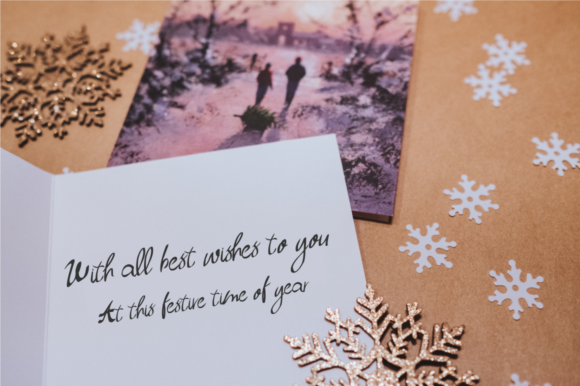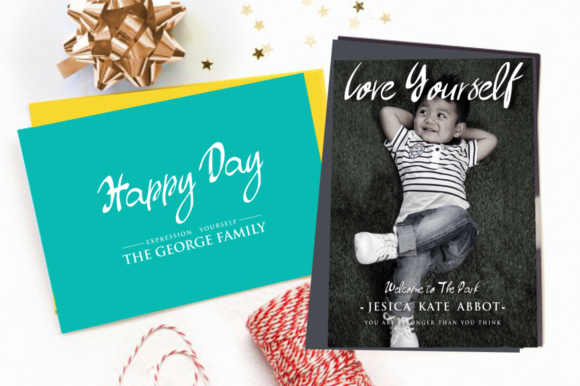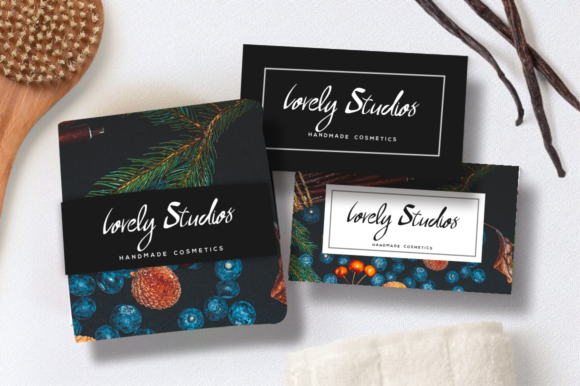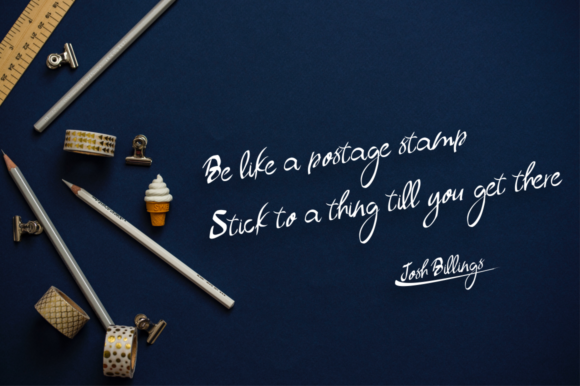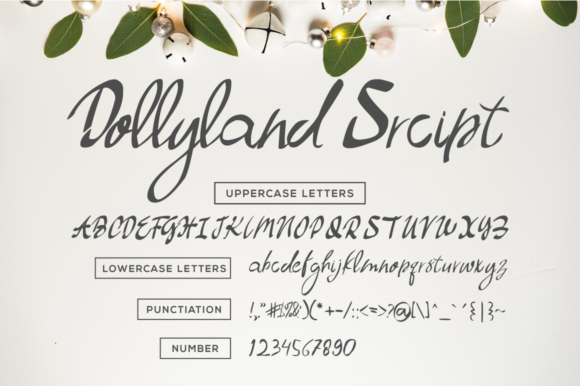
Dollyland Font: Elevate Your Designs with a Touch of Whimsy
In the world of typography, fonts play a crucial role in bringing a design to life. For creatives looking to infuse their projects with a dash of personality and authenticity, the Dollyland font is an excellent choice. This beautiful handwritten font is perfect for modern designs that crave a genuine look. With its dynamic energy and poppy vibe, Dollyland is sure to make your creations stand out from the crowd.
The Essence of Dollyland Font
Dollyland is more than just a font; it’s a statement piece. Its handwritten nature gives it a unique, organic feel that’s hard to replicate with generic typefaces. This font is meticulously crafted to bring a sense of warmth and approachability to your designs. Whether you’re working on a branding project, a packaging design, or a digital platform, Dollyland can add that extra layer of charm that captivates your audience.
Characteristics of Dollyland Font
- Handwritten Authenticity: Dollyland boasts a genuine handwritten look that resonates with audiences seeking a personal touch in design.
- Dynamic Energy: The font’s fluid strokes and varying letterforms give it a lively feel, perfect for designs that aim to exude positivity and enthusiasm.
- Versatility: Dollyland can seamlessly integrate into a wide range of design projects, from playful and poppy to elegant and refined.
- Modern Appeal: Despite its handwritten nature, Dollyland has a contemporary vibe that aligns well with current design trends.
Uses of Dollyland Font
The versatility of Dollyland makes it suitable for various applications. Here are some popular uses:
- Branding and Logos: Use Dollyland to create a memorable brand identity that stands out with its unique typography.
- Digital and Print Media: Whether it’s a website, social media graphics, or print materials like brochures and posters, Dollyland adds a touch of elegance and fun.
- Crafting and DIY Projects: For crafters and makers, Dollyland can be used in project labels, packaging, and promotional materials to add a personal and whimsical touch.
- Events and Invitations: Make your event invitations, flyers, and banners more appealing with the charming and playful look of Dollyland.
Tips for Using Dollyland Font Effectively
To maximize the impact of Dollyland in your designs, consider the following tips:
- Pair with Complementary Fonts: Combine Dollyland with clean, sans-serif fonts for contrast and visual interest.
- Play with Colors: Enhance the poppy and fun aspects of Dollyland by using vibrant colors that match your brand or design theme.
- Adjust Letter Spacing: Experiment with kerning and letter spacing to ensure readability and to convey the desired mood.
- Utilize Font Variations: If available, use different weights or styles of Dollyland to create hierarchy and add depth to your design.
Dollyland font is a versatile and charming addition to any designer’s toolkit. Its unique blend of handwritten authenticity and dynamic energy makes it perfect for projects that demand a modern yet genuine look. By incorporating Dollyland into your designs, you can create visually appealing and engaging content that resonates with your audience. So, why settle for ordinary when you can add a touch of whimsy and personality to your work with Dollyland?